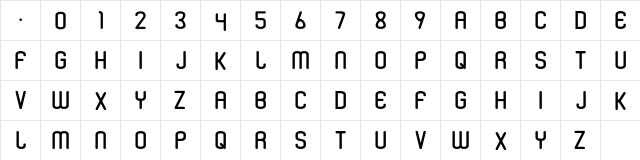
Adidas Unity Regular
Design Context for Adidas Unity Typeface
Adidas Unity is a composed and adaptable typeface that performs quietly and consistently across a wide range of design contexts.
Pro Tip: Use Adidas Unity in both headline and body roles to test its range before committing to a single application.